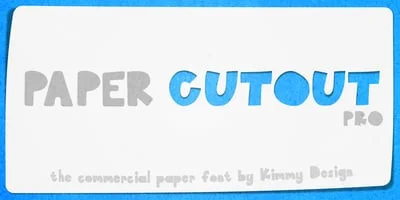
Paper Cutout Pro Font
Paper Cutout Pro Font is perfect for scrapbooking project designs, craft store branding, handmade card making supplies, children's art activity materials, DIY workshop signage, paper art gallery displays, creative hobby packaging, and artistic crafting marketing campaigns. This charming typeface excels in applications where handcrafted creativity and paper artistry are essential.
What makes Paper Cutout Pro Font so exciting is its delightful ability to capture the whimsical charm and tactile appeal of paper crafting through playful, cut-paper inspired letterforms that embody the joy of handmade creativity and the satisfaction of artistic expression. The font features crafted character shapes with paper-cut textures and handmade styling that evoke images of scissors and colorful paper, creative workshops, and the personal touch of handcrafted projects. Its craft-focused design philosophy combines artistic authenticity with contemporary appeal, making it perfect for creative brands seeking to convey handmade quality, artistic expression, and connection to crafting communities and paper art culture.
Paper Cutout Pro Font belongs to the craft display font family, specifically designed for handmade arts and paper crafting branding applications. This typeface family emphasizes artistic visual impact through paper-inspired styling and craft character elements, ensuring authentic handmade presentation across various creative hobby and artistic crafting-focused design projects.
Create artistic magic with Paper Cutout Pro Font, a typeface that embodies the joyful spirit of paper crafting and handmade creativity. This charming font delivers exceptional warmth for craft applications, featuring comprehensive character sets with crafting symbols and artistic punctuation marks that capture the essence of creative expression and handmade artistry. Its lovingly crafted letterforms maintain excellent readability while preserving the authentic paper-cut aesthetic across various sizes, from small craft labels to large workshop entrance displays. The font's distinctive handmade personality makes it invaluable for designers creating craft brands, artistic materials, and creative content where conveying creativity, handmade quality, and artistic expression is crucial for engaging crafting enthusiasts and artistic communities seeking authentic handmade experiences and joyful, creative paper art projects.